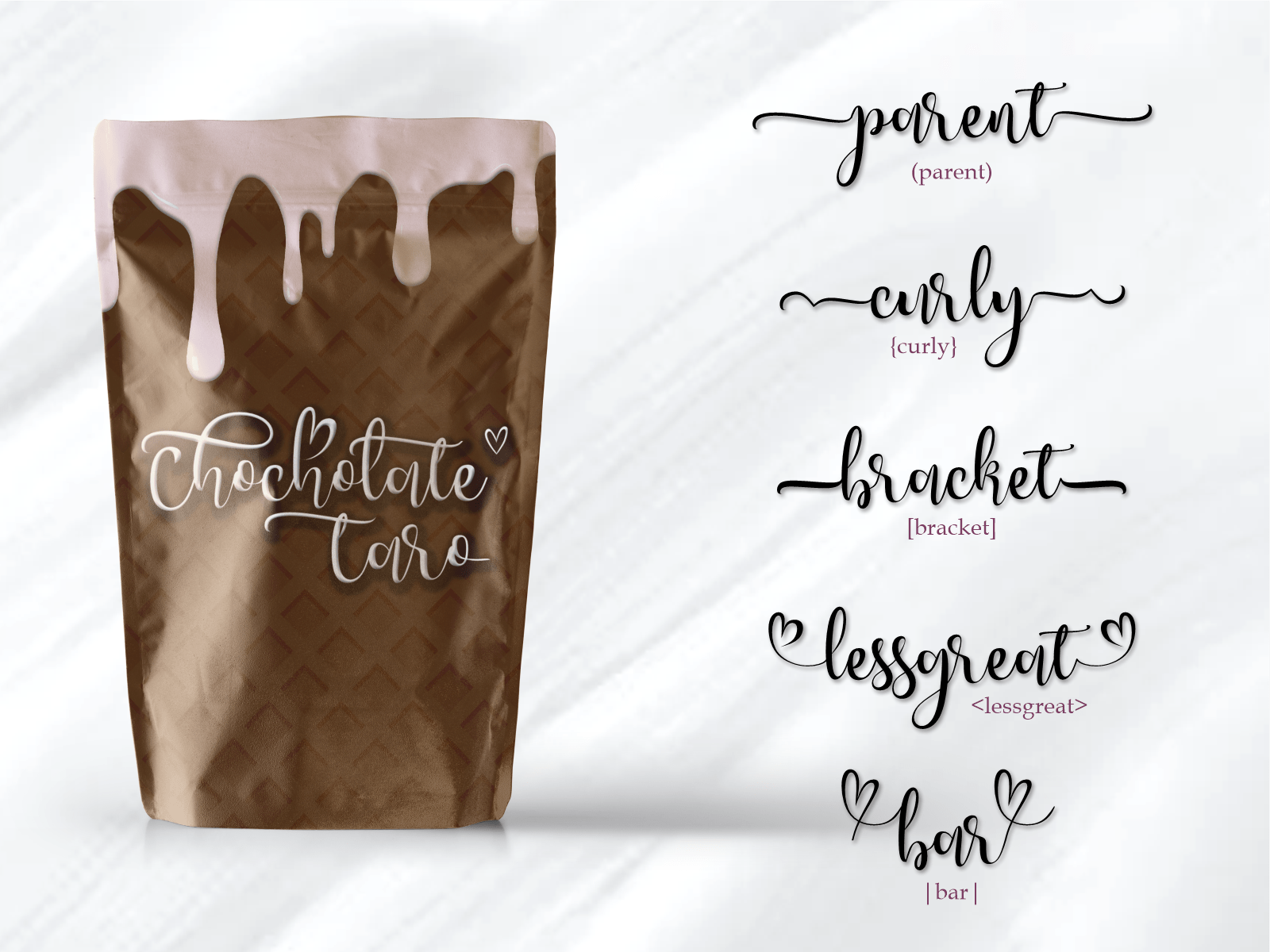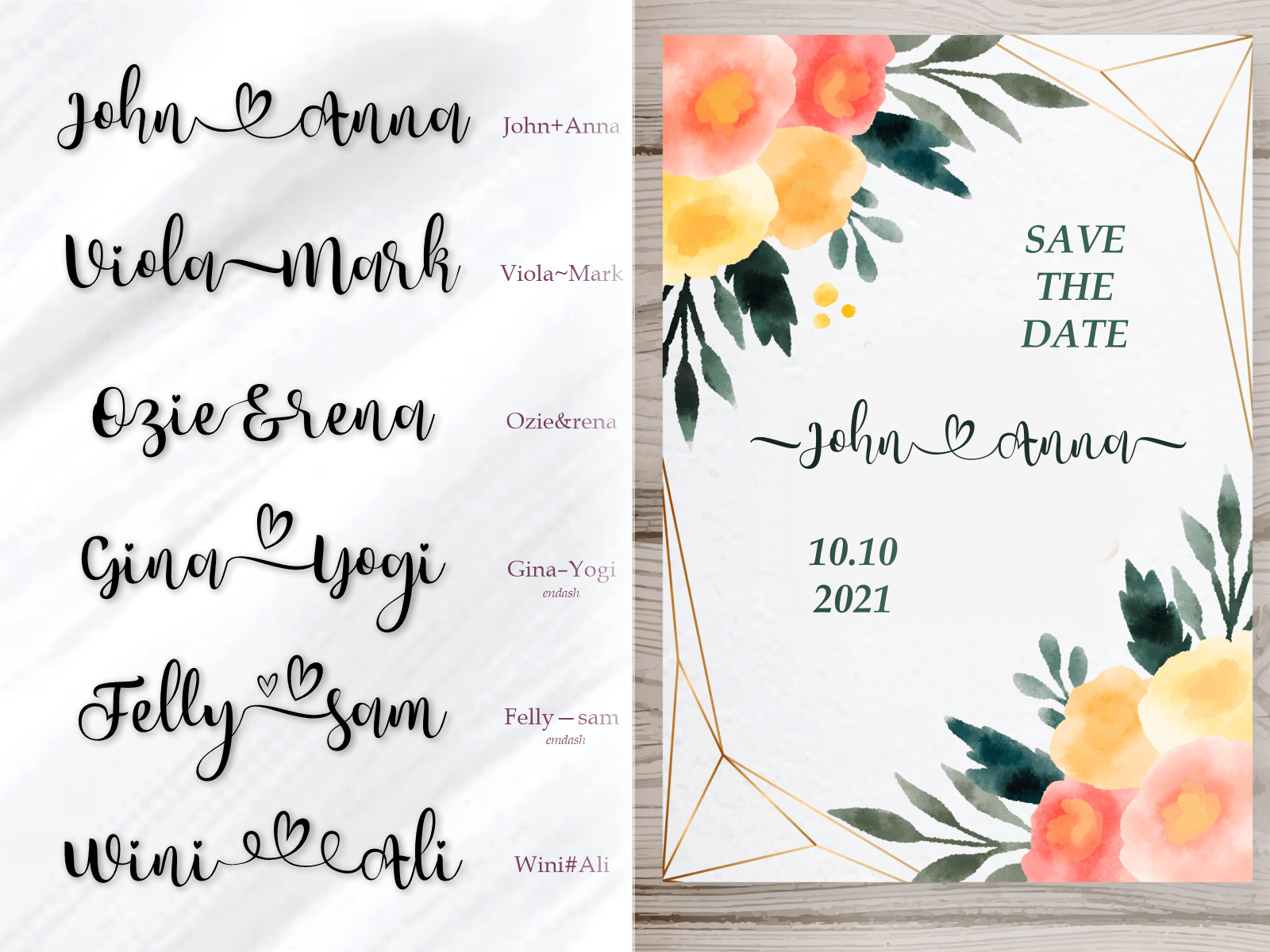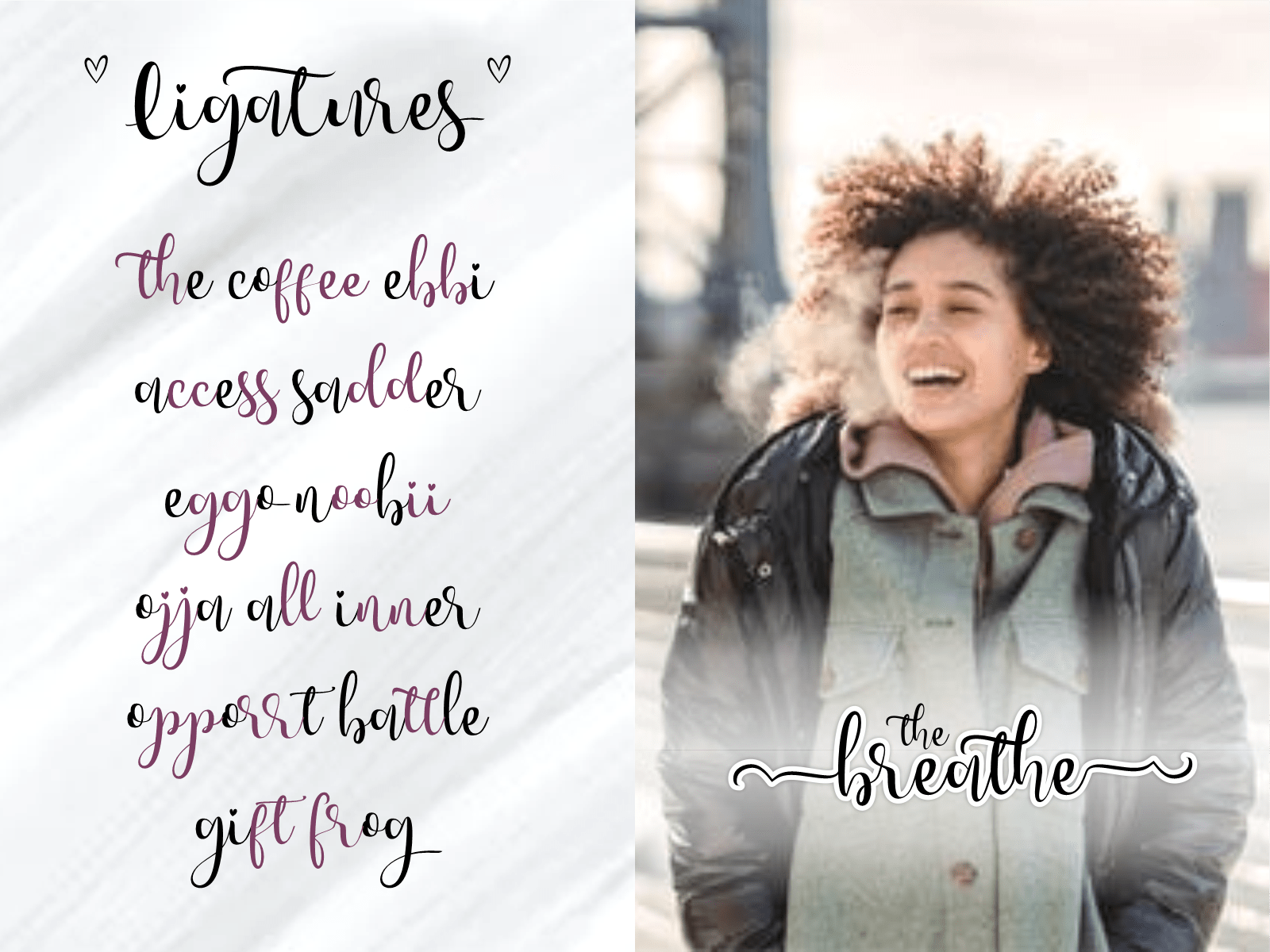
Chellsea Script Font
It’s a romantic and sweet calligraphy typeface with characters that dance along the baseline. It will add a luxury spark to any design project that you wish to create! This font is PUA encoded which means you can access all of the amazing glyphs and ligatures with ease!